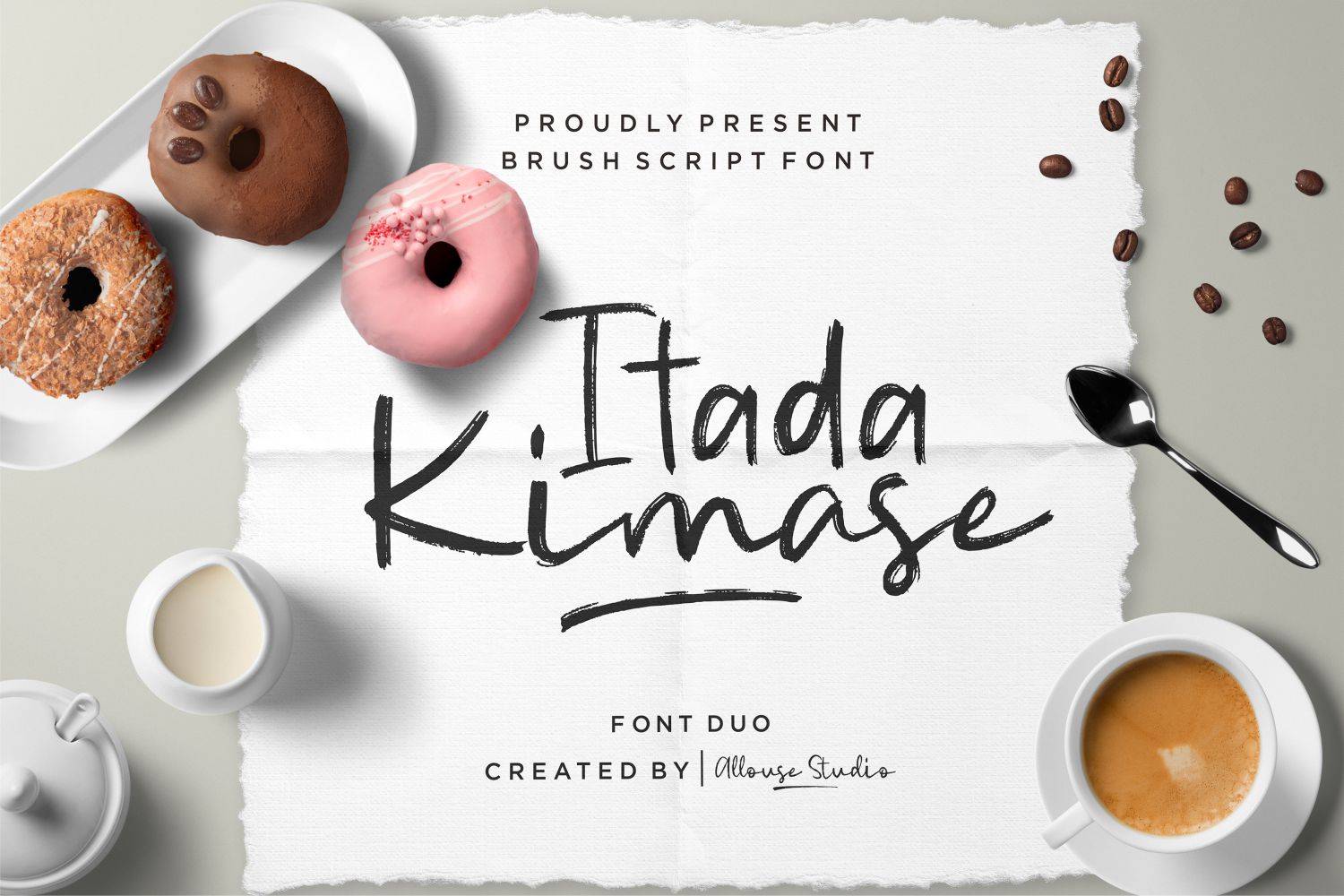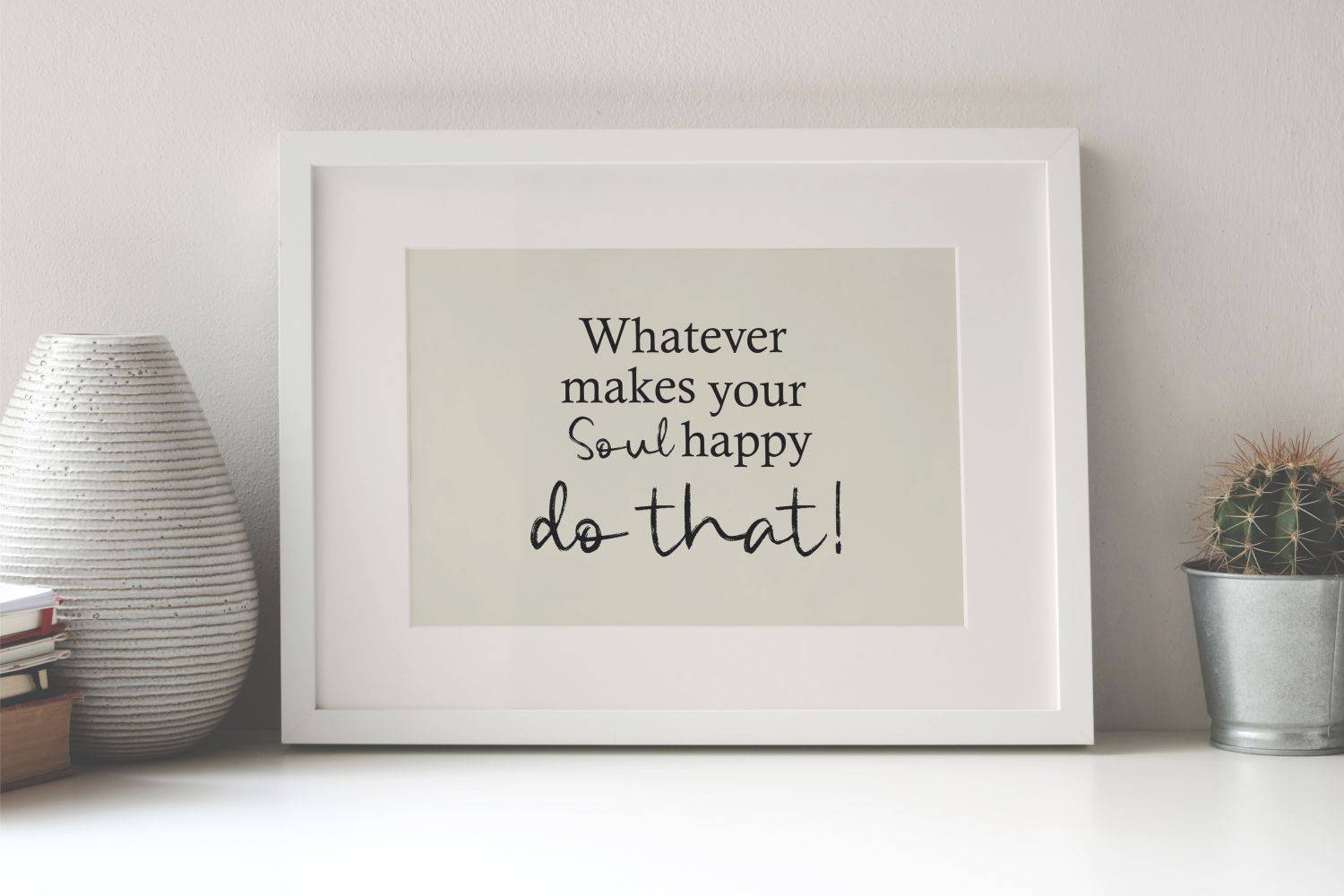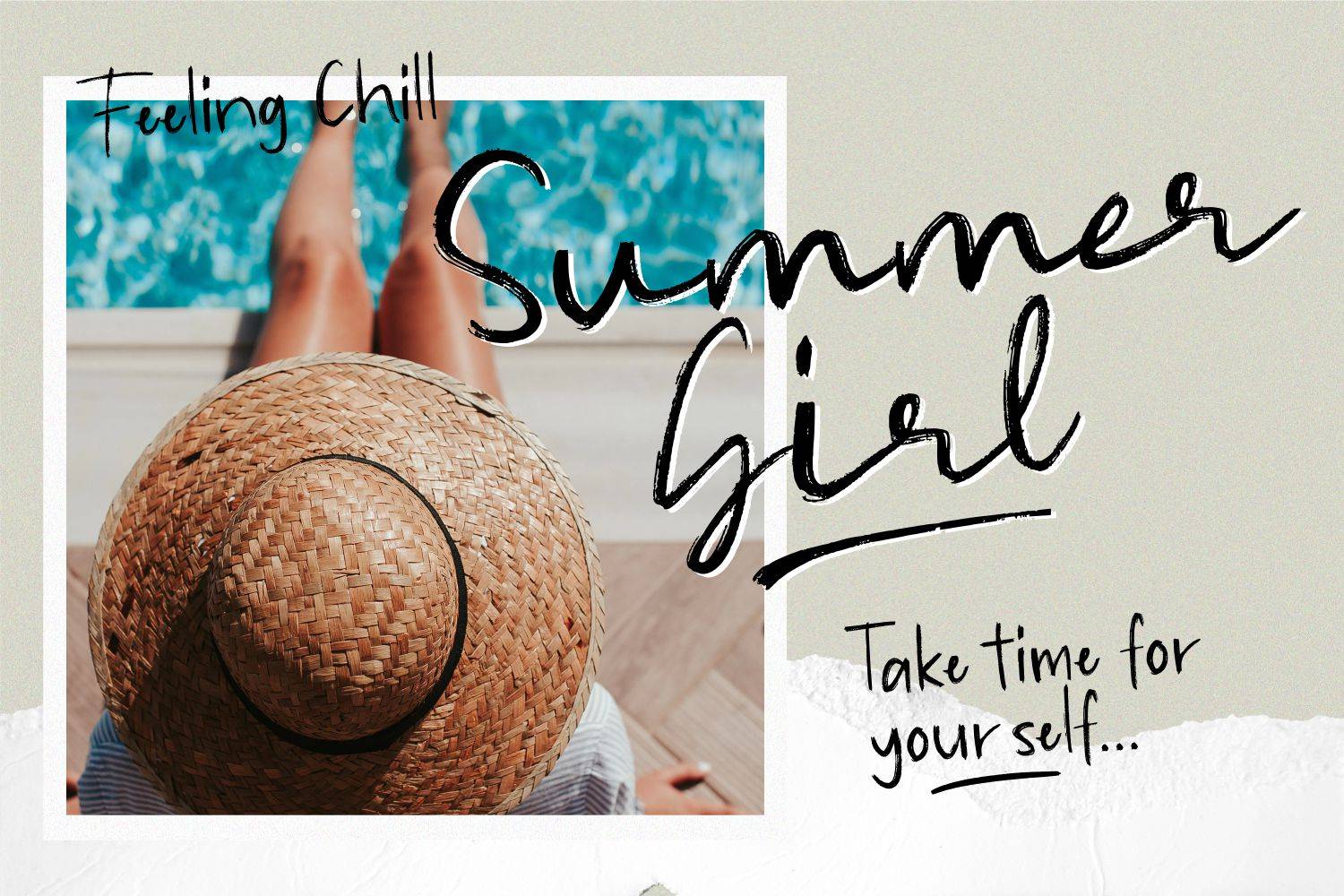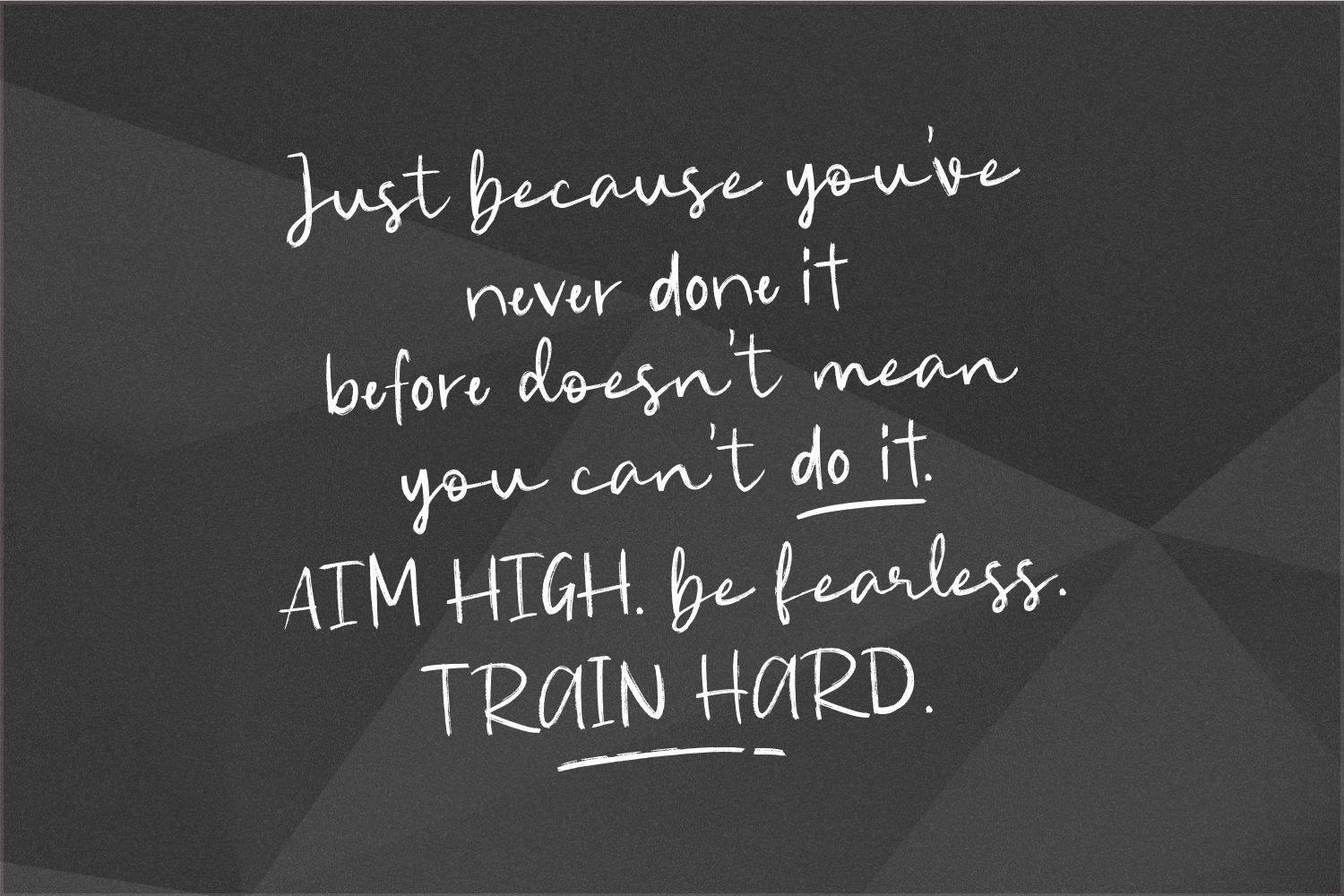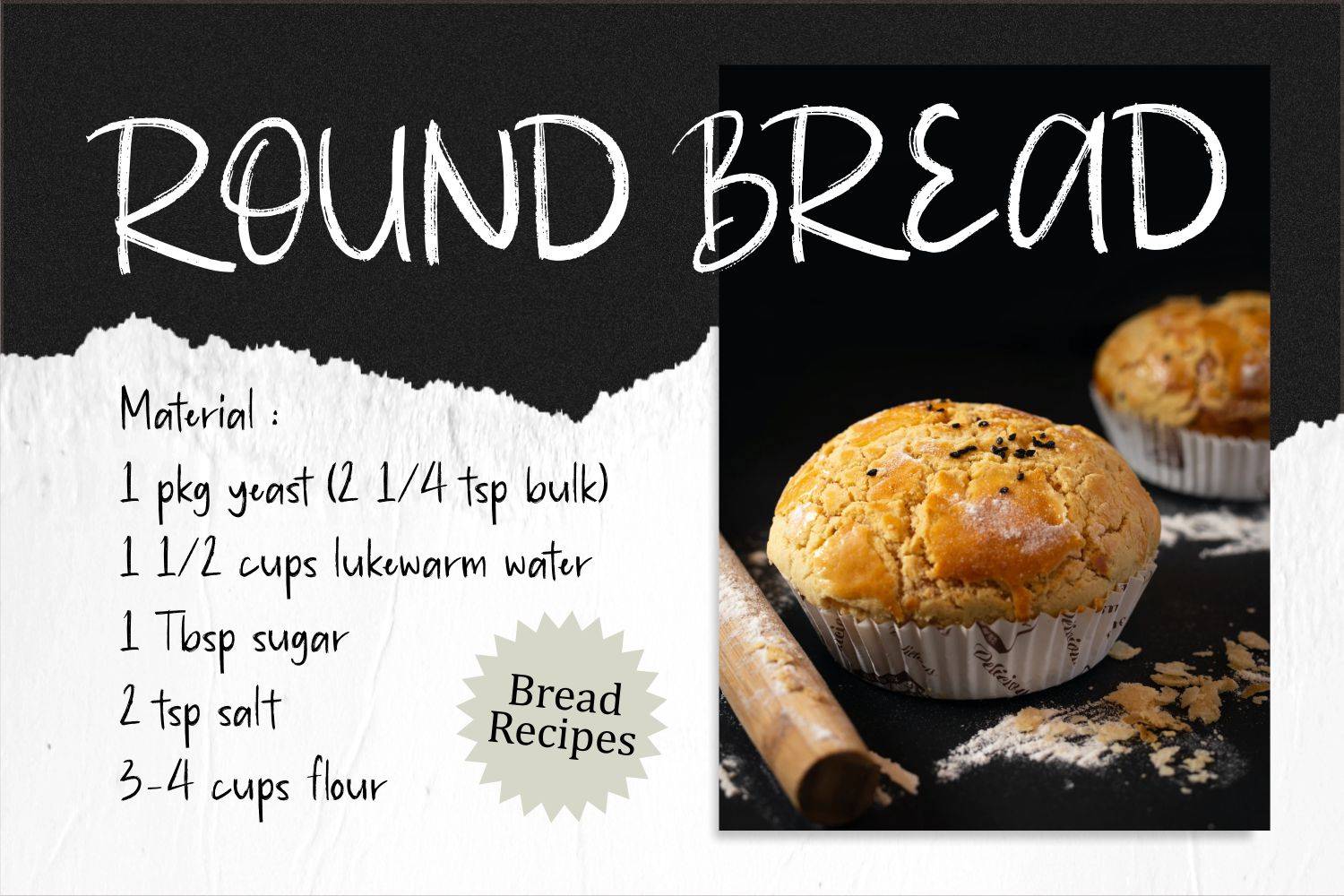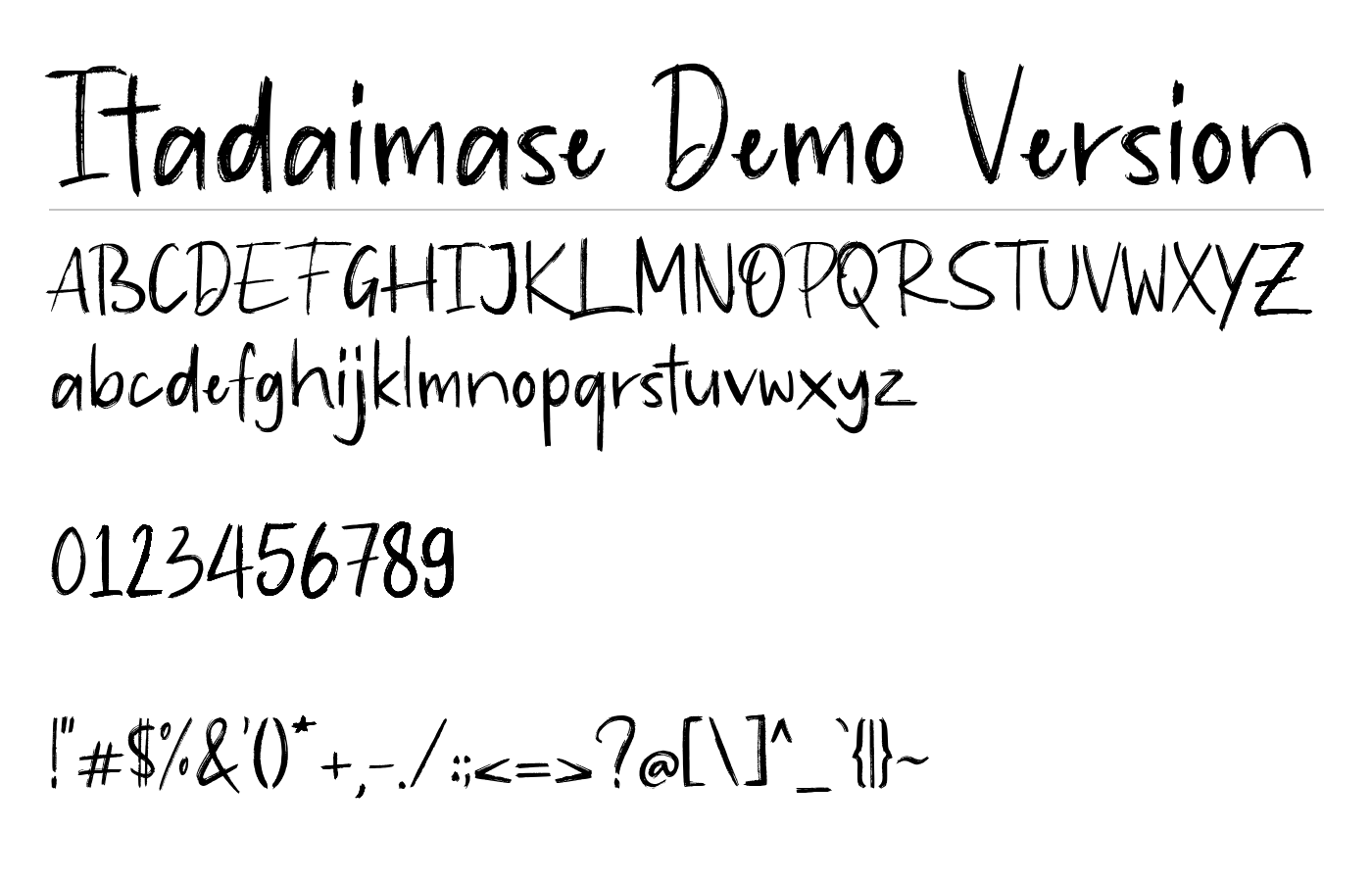
Itadakimase is a casual, handwritten sans serif font that captures a playful and informal vibe with its rough, brush-like strokes and uneven letterforms. It features a lively texture with moderate contrast and a slightly condensed width, making it ideal for creative projects that seek a personal, approachable feel. This font works beautifully for branding, posters, and web designs where a friendly, artistic touch is desired.
Itadakimase Font